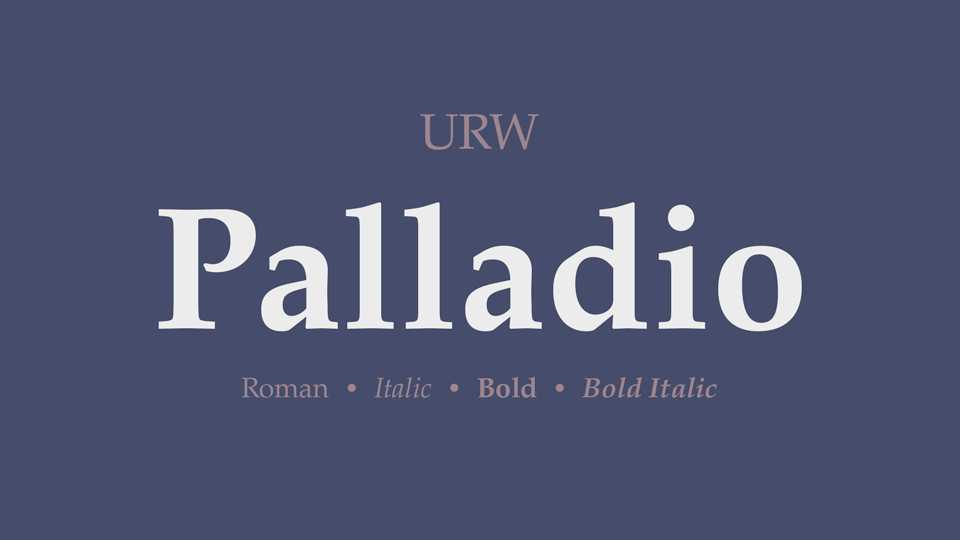
Download URW Palladio (P052) typeface, an elegant old style serif font family in two weights and Italics based on the Palatino design by Hermann Zapf, initially released in 1949 by the Stempel foundry.
Designer: URW Type Foundry